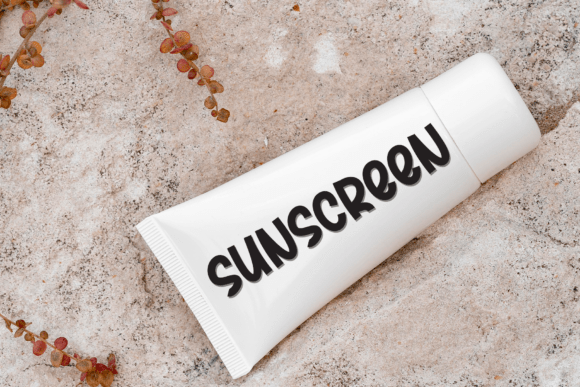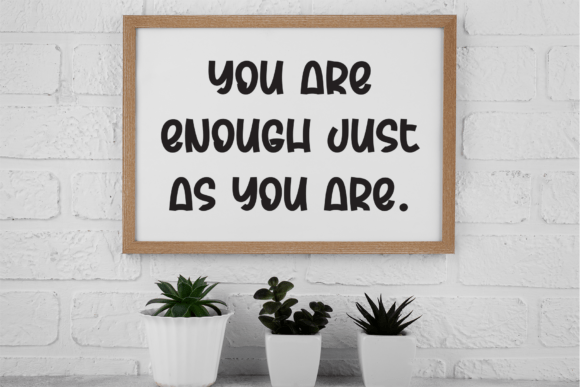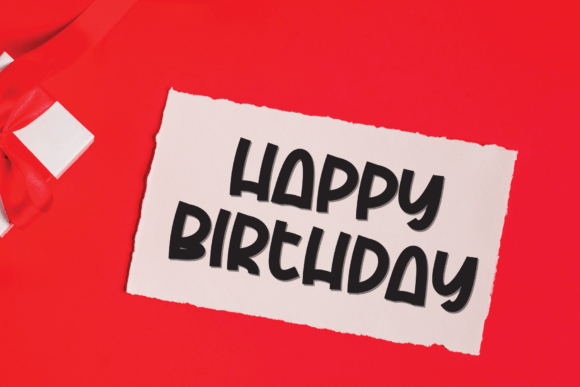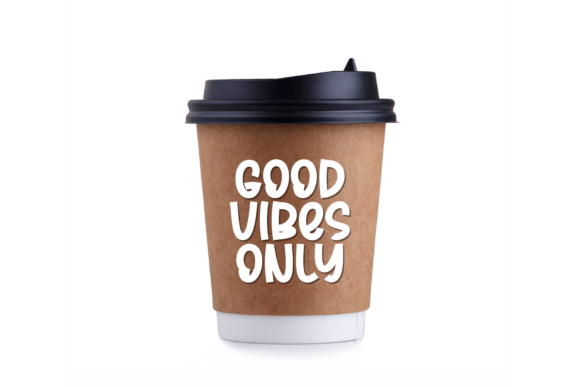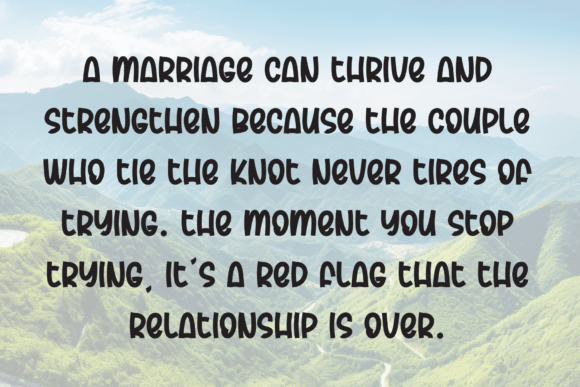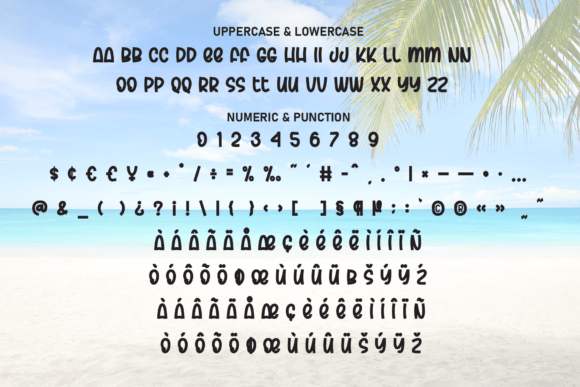
Introducing Beauty Beach Font: The Perfect Blend of Modern Simplicity and Playful Charm
Are you tired of using the same old fonts for your design projects? Look no further than Beauty Beach Font, a casual display font that brings a fresh and friendly touch to any project. With its modern simplicity, playful vibe, and versatile character, this font is perfect for designers and crafters looking to add a unique touch to their work.
Clean Shapes, Soft Edges, and Well-Balanced Letterforms
Beauty Beach Font features clean shapes, soft edges, and well-balanced letterforms that capture the charm of relaxed design while maintaining clarity and style. The font’s clean lines and simple shapes make it easy to read and understand, while its soft edges add a touch of warmth and approachability. The well-balanced letterforms ensure that the font looks great in any size or context, from posters and branding to packaging and social media graphics.
Ideal for a Variety of Design Projects
Beauty Beach Font is ideal for a wide range of design projects, including:
- Posters: Add a fresh and friendly touch to your posters with Beauty Beach Font.
- Branding: Use Beauty Beach Font to create a unique and memorable brand identity.
- Packaging: Add a playful and approachable vibe to your packaging with Beauty Beach Font.
- Social Media Graphics: Use Beauty Beach Font to create eye-catching social media graphics that stand out from the crowd.
Versatile Character and Eye-Catching Appeal
Beauty Beach Font has a versatile character that makes it perfect for a wide range of design projects. Its eye-catching appeal ensures that your designs will stand out from the crowd and grab the attention of your audience. Whether you’re designing for print or digital, Beauty Beach Font delivers both readability and personality.
Why Choose Beauty Beach Font?
There are many reasons why Beauty Beach Font is the perfect choice for designers and crafters. Here are just a few:
- Unique and memorable: Beauty Beach Font is a unique and memorable font that will help your designs stand out from the crowd.
- Easy to read: The font’s clean lines and simple shapes make it easy to read and understand.
- Versatile: Beauty Beach Font is perfect for a wide range of design projects, from posters and branding to packaging and social media graphics.
- Playful and approachable: The font’s soft edges and well-balanced letterforms add a playful and approachable vibe to any design.
Tips for Using Beauty Beach Font
Here are a few tips for using Beauty Beach Font in your design projects:
- Use it as a display font: Beauty Beach Font is perfect for use as a display font, where it can be used to grab the attention of your audience.
- Pair it with other fonts: Beauty Beach Font pairs well with other fonts, making it easy to create a unique and memorable design.
- Experiment with different sizes: Beauty Beach Font looks great in any size, from small to large.
- Use it consistently: Use Beauty Beach Font consistently throughout your design project to create a cohesive and memorable brand identity.
Beauty Beach Font is a casual display font that brings a fresh and friendly touch to any project. With its modern simplicity, playful vibe, and versatile character, it’s perfect for designers and crafters looking to add a unique touch to their work. Whether you’re designing posters, branding, packaging, or social media graphics, Beauty Beach Font delivers both readability and personality. So why wait? Try Beauty Beach Font today and see the difference it can make in your design projects!